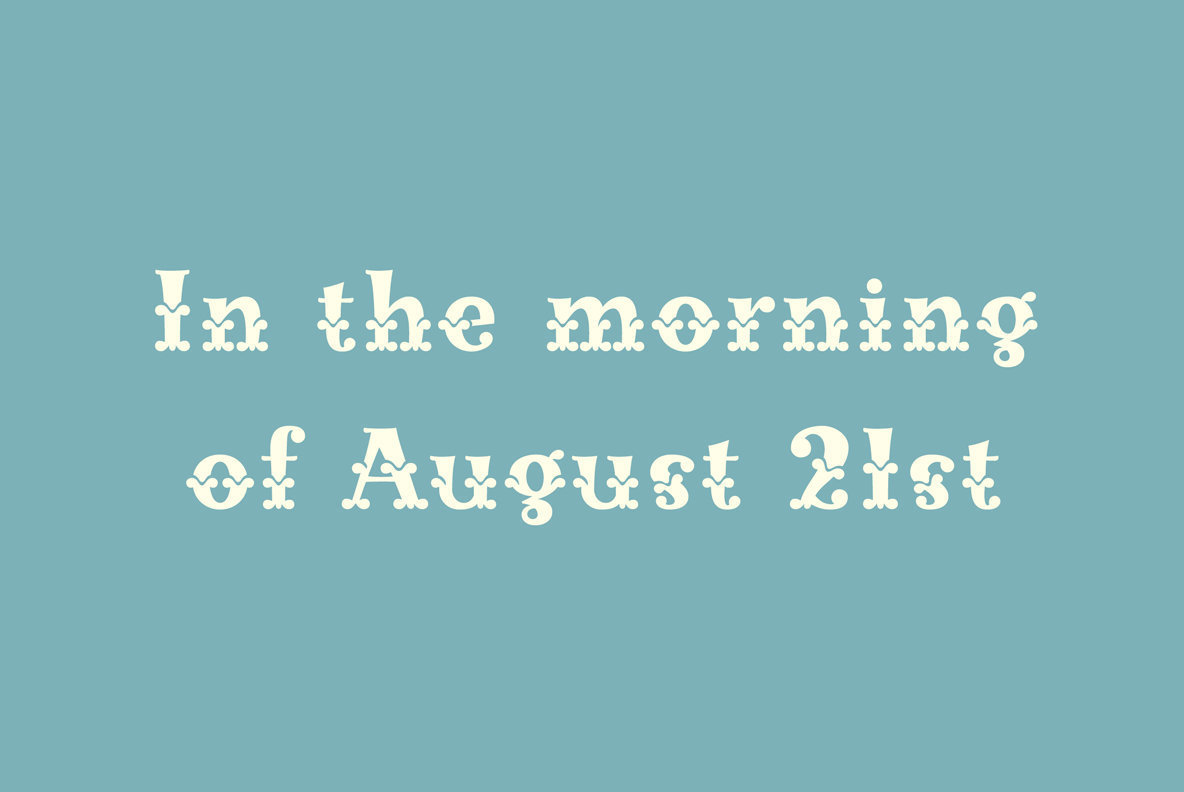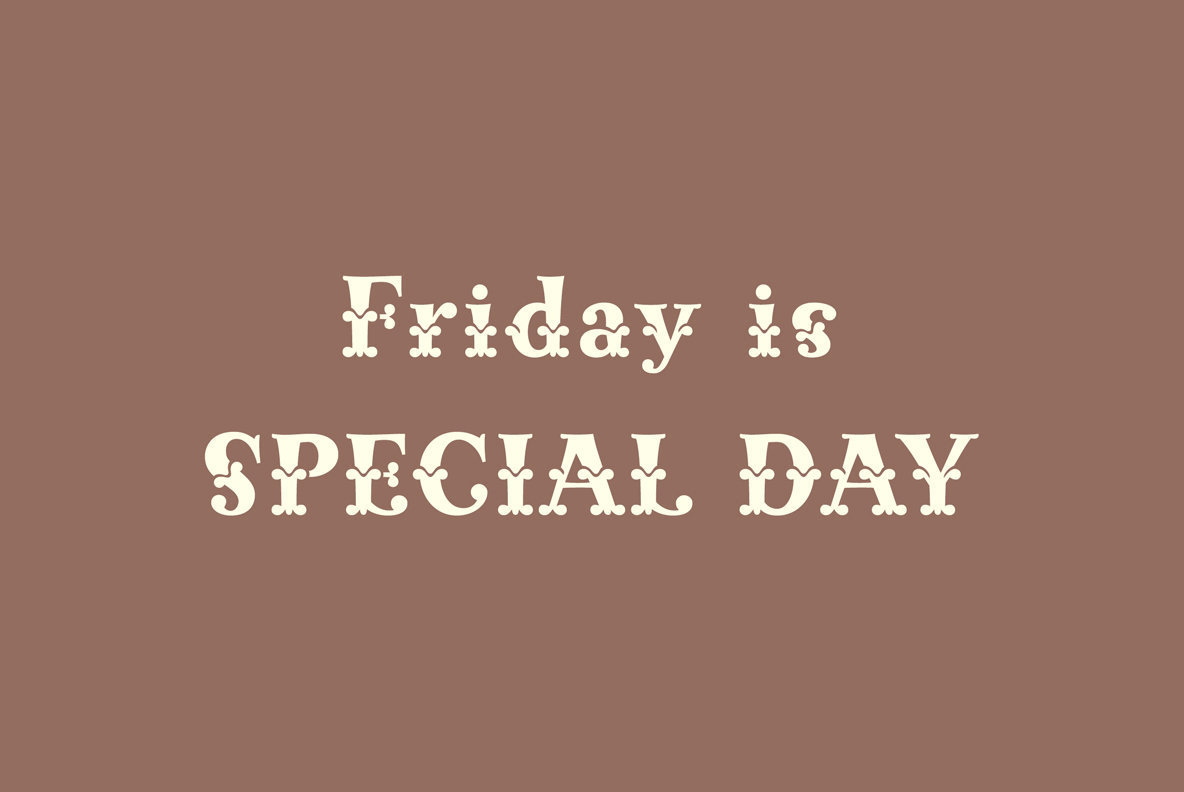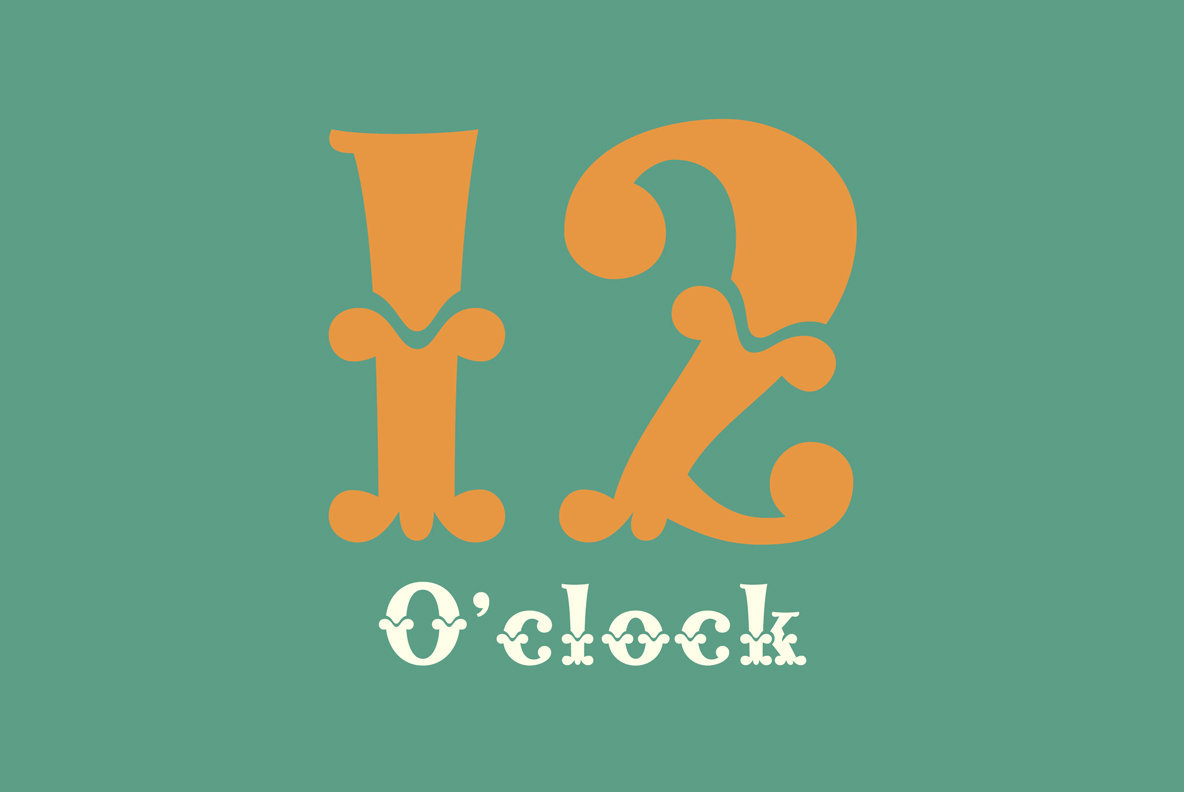
Mademoiselle
Foundry: Ryoichi Tsunekawa
This woodtype is the one of the most unique, wild, tuscan themed fonts this side of the frontier. Works great when combined with Flat-It's Homemade text font.